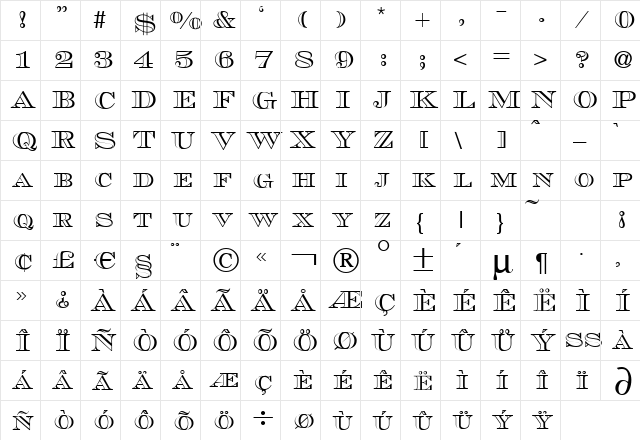
MauriceOutline Regular
Design Context for MauriceOutline Typeface
MauriceOutline brings ornamental detail and strong personality to headlines and identities, where visual impact matters more than quiet functionality.
Font Pairing: Pair with a clean neutral sans-serif for body copy to let MauriceOutline's character lead without overwhelming the composition.
Pro Tip: Use MauriceOutline exclusively at display sizes — it was designed to be seen, not read at length. Let a neutral companion handle body copy.